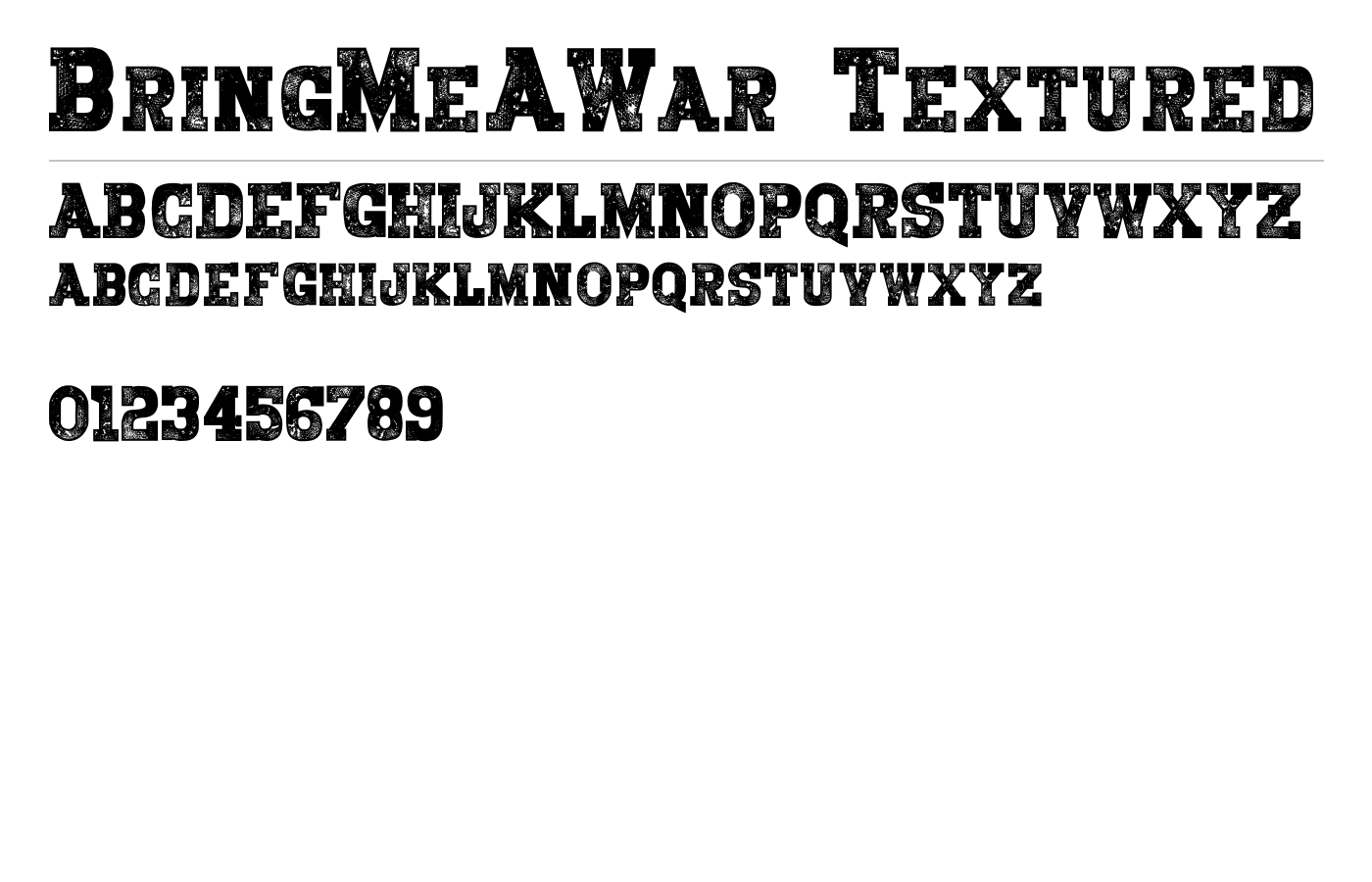
BringMeAWar_Textured is a bold slab serif font with a distressed, textured appearance that gives it a rugged, vintage feel. Its strong, blocky letterforms combined with the uneven, worn surface make it perfect for creating impactful headlines, logos, and designs with a gritty, industrial vibe. This font stands out in branding, posters, and editorial projects that want to evoke a sense of toughness and authenticity.
BringMeAWar_Textured Font
About BringMeAWar_Textured Font
| Font family | BringMeAWar_Textured Font |
| Designer | Knackpack Studio |